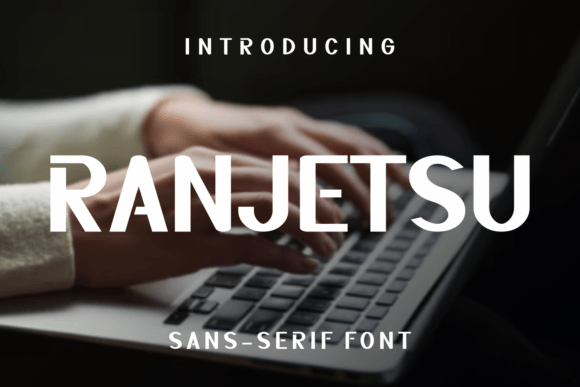
Behold, typography enthusiasts! Immerse yourself in the world of Ranjetsu, a sans serif font brimming with sophistication, modernity, and an undeniable charm. Designed by the renowned lelevien, Ranjetsu stands as an embodiment of elegance and poise, effortlessly enhancing your digital creations.
Step into the realm of effective communication, where Ranjetsu's carefully crafted glyphs and harmonious spacing orchestrate a symphony of clarity and readability. Whether you're composing compelling emails, crafting captivating presentations, or designing stunning websites, Ranjetsu is your trusted companion, ensuring your words resonate with impact.
Indulge in the boundless versatility of Ranjetsu, a font that seamlessly adapts to a myriad of design aesthetics. Its inherent adaptability makes it the perfect choice for a wide range of projects, from sleek minimalist designs to playful and vibrant creations. Unleash your creativity and let Ranjetsu be the foundation upon which your design dreams take flight.
Experience the transformative power of Ranjetsu, a font that elevates your designs to new heights. With its innate ability to evoke emotions and capture attention, Ranjetsu breathes life into your digital creations, leaving a lasting impression on your audience. Prepare to be mesmerized as your designs exude an aura of professionalism and sophistication, attracting and engaging your target audience like never before.
Embrace the opportunity to enhance your visual communication with Ranjetsu, a font that empowers you to convey your message with clarity, confidence, and an unforgettable charm. Its modern aesthetics and timeless elegance blend seamlessly to create a font that stands the test of time, ensuring your designs remain relevant and impactful.